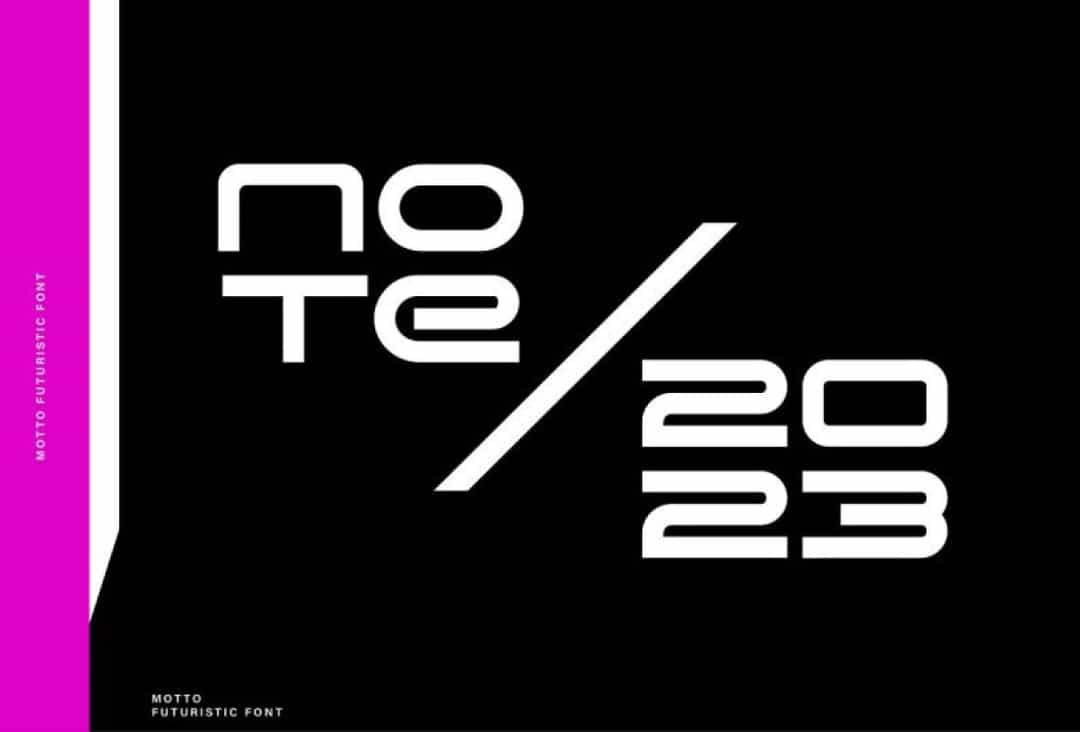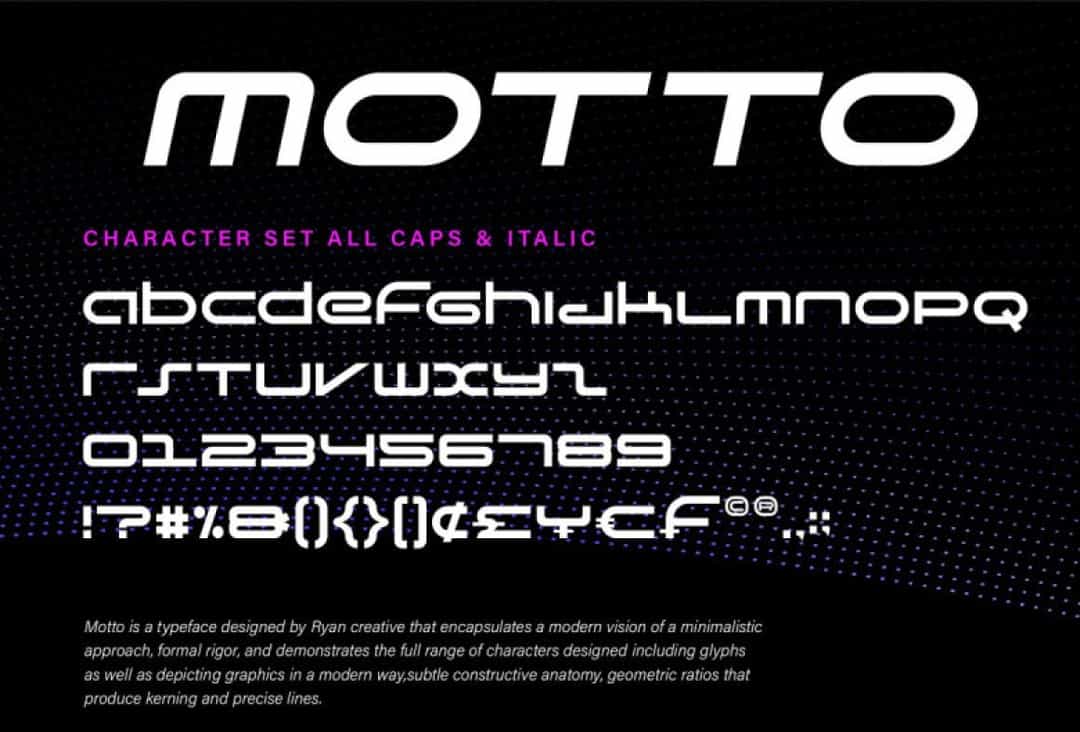
Motto is an avant-garde sans typography by Ryan Creative that encompasses modern minimalist style, formal rigor, and various characters designed by Ryan such as glyphs depicting images in an eye-catching modern way. These subtle geometric proportions create kerning as well as precise lines resulting in this avant-garde design.